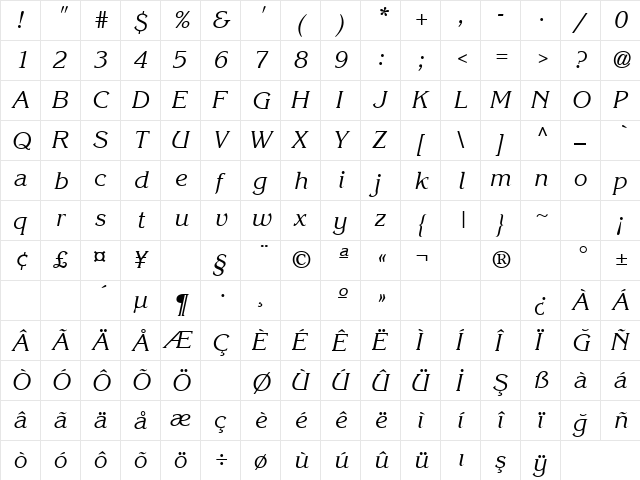
TR Eagles Italic
TR Eagles takes a measured approach to typography — its balanced proportions and neutral character make it a reliable workhorse for both digital and print work. Its italic angle brings a sense of urgency and motion to the letterforms.